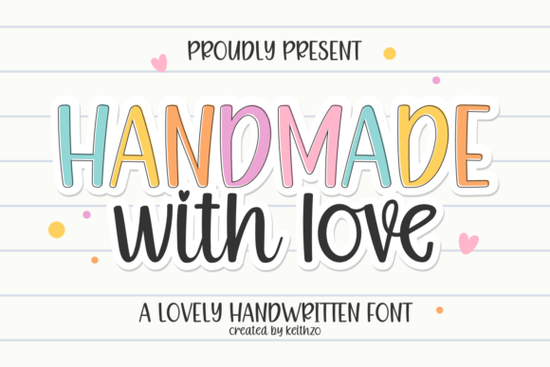
Finding the right font for craft projects and branding can feel surprisingly difficult. You need something that looks handcrafted and warm but still reads clearly at different sizes. The Handmade with Love Font from Creative Fabrica solves exactly this problem it's a handwritten typeface designed to feel authentic without sacrificing legibility. Whether you're working on a logo, a classroom poster, or a set of vinyl decals, this font delivers a genuine hand-lettered look with professional polish.
What Makes This Handwritten Font Different from Others?
Plenty of script fonts try to look handcrafted but end up feeling stiff or overly decorative. Handmade with Love takes a different approach. Its strokes mimic natural pen movements gentle curves, slightly uneven edges, and a rhythm that feels truly human. The result is a typeface that reads as warm and personal, not generic or overproduced.
What really sets it apart is the balance between character and clarity. Some handwritten fonts sacrifice readability for style. This one keeps clean letter spacing and smooth edges, so your text stays easy to read whether it's displayed large on a banner or small on a product label. If you've explored other options like sweet cupcake font for playful designs, you'll appreciate how this font fills a slightly different niche more refined, more versatile, and suited to a wider range of projects.
Which Projects Work Best with a Handcrafted Font?
One of the strengths of this typeface is its flexibility. Here are some common uses where it really shines:
- Branding and logos especially for small businesses that want a personal, approachable feel
- Wedding invitations and personal stationery where warmth and elegance matter
- Print-on-demand products mugs, tote bags, t-shirts, and posters
- Classroom décor and teacher resources headers, bulletin boards, worksheets
- Digital designs social media graphics, blog headers, email templates
- Vinyl decals and sublimation projects works well with Cricut and Silhouette machines
If you design products for Cricut or Silhouette, the clean outlines and smooth curves of this font make it easy to cut and weed. It pairs nicely with other elegant script fonts for layered designs or stands confidently on its own.
Is It a Good Fit for Cricut and Silhouette Projects?
Yes, and that's one of the main reasons crafters are drawn to it. Fonts with rough edges or overly thin strokes can cause headaches during the cutting process letters tear, details get lost, and weeding becomes frustrating. Handmade with Love was designed with clean, smooth lines that translate well to SVG designs and vinyl work.
For sublimation printing, the font holds its detail beautifully at various sizes. If you sell personalized items on Etsy or run a small print-on-demand shop, having a reliable handwritten font in your toolkit saves time and reduces rework. You might also want to pair it with something like kids crayon font if you're creating designs aimed at families or children.
Can Teachers and Educators Use This Font?
Absolutely. The legibility of Handmade with Love makes it a practical choice for educational materials. Teachers often need fonts that feel inviting and fun but are still easy for young readers to follow. This one strikes that balance well.
It works great for classroom headers, reading corner signs, name tags, worksheet titles, and parent communication materials. If you're building a warm, welcoming classroom environment, fonts like this one or the friendly backpack font help set that tone without looking sloppy.
What About Pairing It with Other Fonts?
Handwritten fonts rarely work well in isolation for full designs. You'll typically pair a script or handwritten font with a clean sans-serif or serif font for body text. Handmade with Love works nicely alongside simple geometric sans-serifs for a modern-casual look, or with classic serifs for something more sophisticated.
For projects that call for multiple handwritten styles say, a layered quote design you could combine it with something like Halimun font for contrast while keeping that handcrafted feel consistent.
Quick Checklist Before You Buy
- Check the license make sure it covers your intended use (personal, commercial, POD)
- Test it at multiple sizes confirm readability for your specific project
- Preview with your color palette handwritten fonts can look very different in dark vs. light themes
Tip: Before starting a big project, type out your actual text in a design preview tool to see how letter combinations flow together. Handwritten fonts can have surprising spacing between certain character pairs, and a quick preview prevents extra editing later.